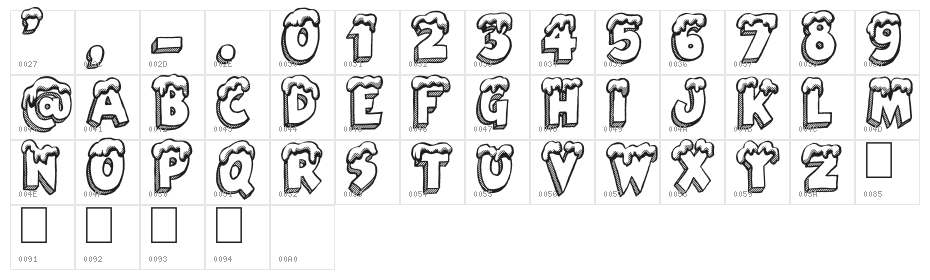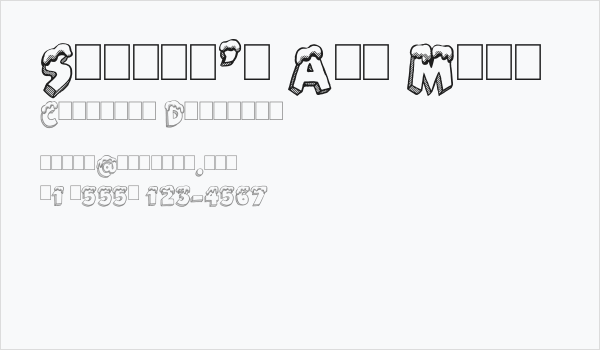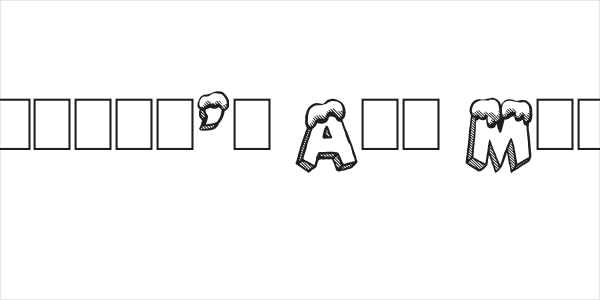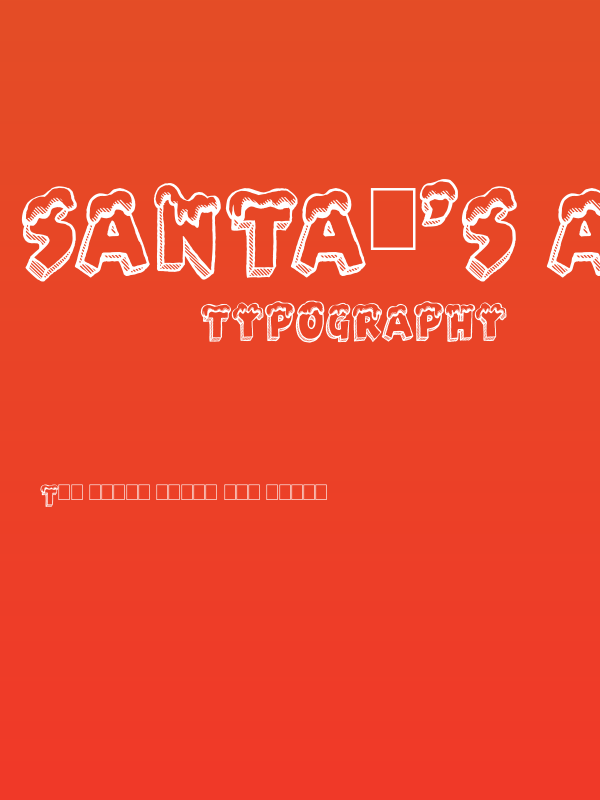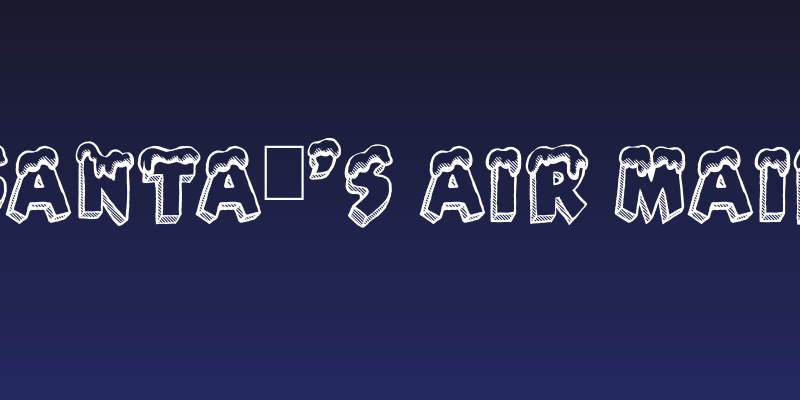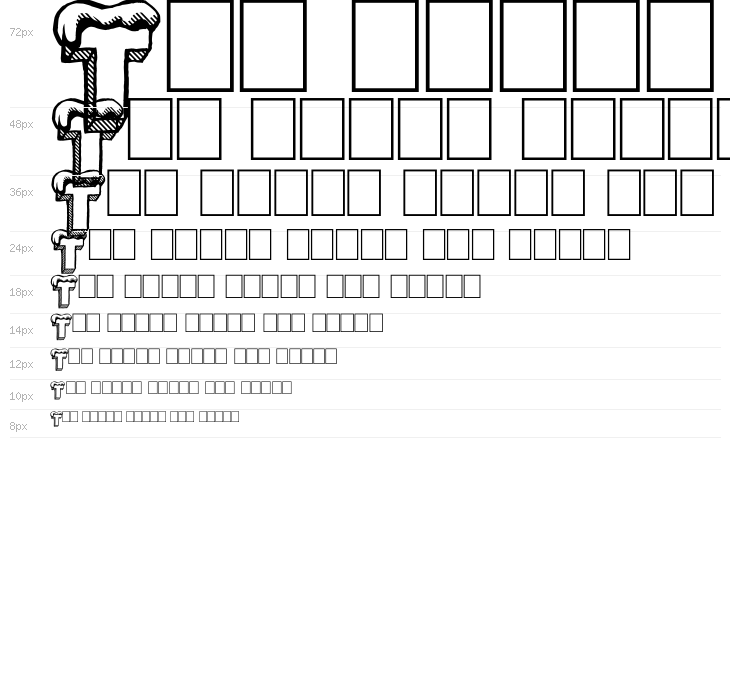
Santa's Air Mail Font
Santa's Air Mail Description
This playful and festive font features bold, uppercase letters adorned with snow-like caps, evoking a whimsical winter theme. The characters are outlined with a thick black line, adding to their bold appearance, while the interior is filled with a subtle crosshatch pattern that gives a textured look. The numbers and special characters follow the same design, maintaining consistency across the font. The overall style is decorative and fun, perfect for holiday-themed projects. The font's unique design makes it stand out, capturing the essence of a snowy, festive atmosphere.
| Proposed Projects | Ideal for holiday cards, festive banners, children's books, and winter-themed event posters. |